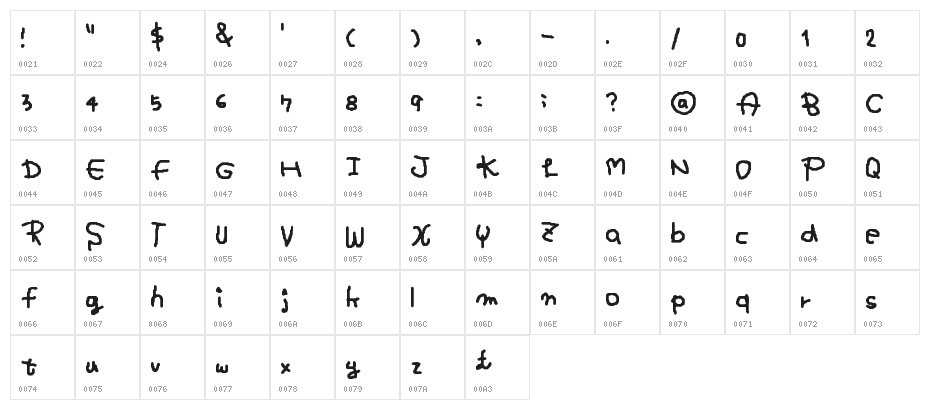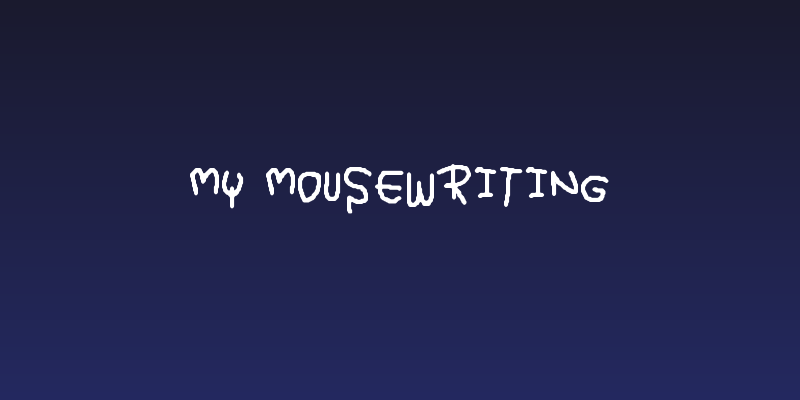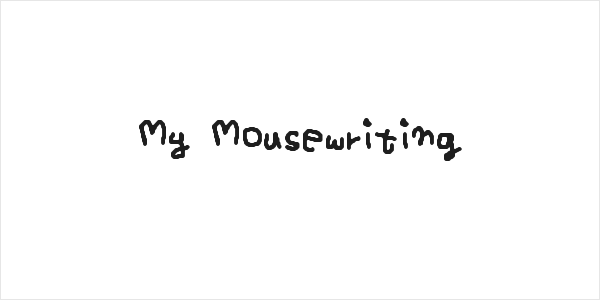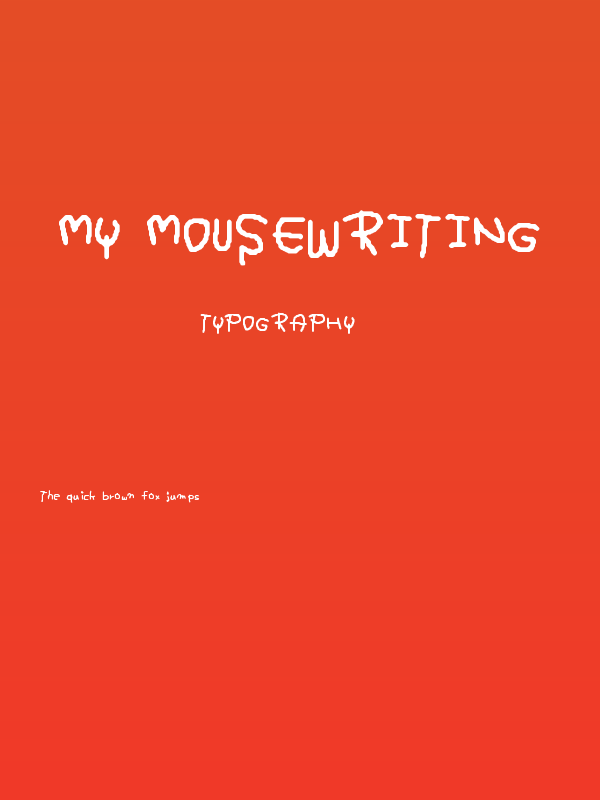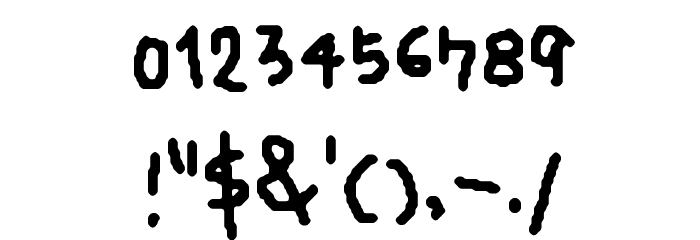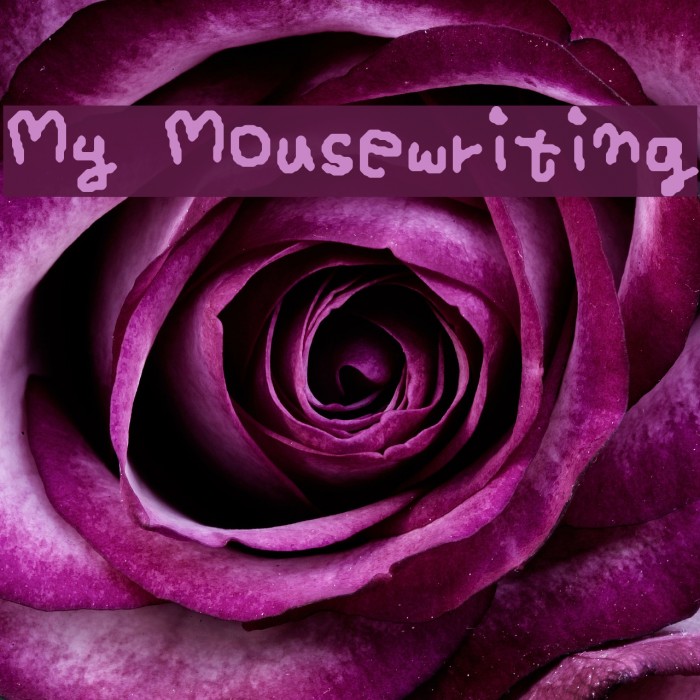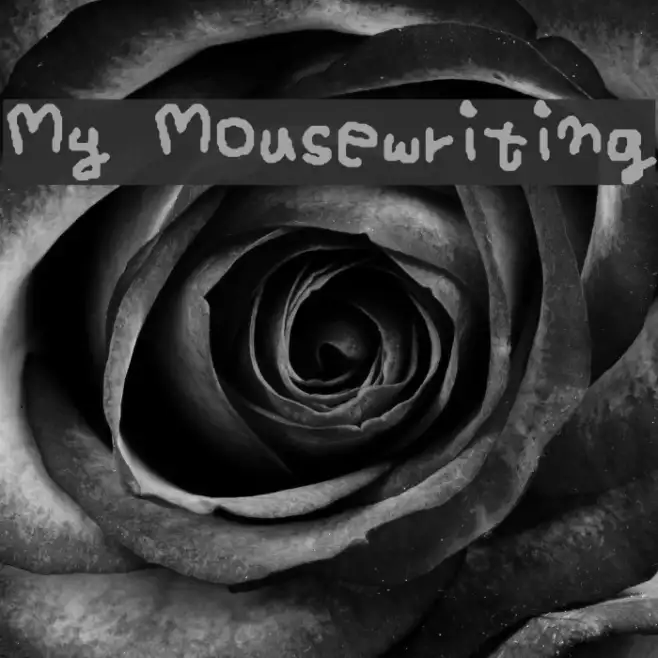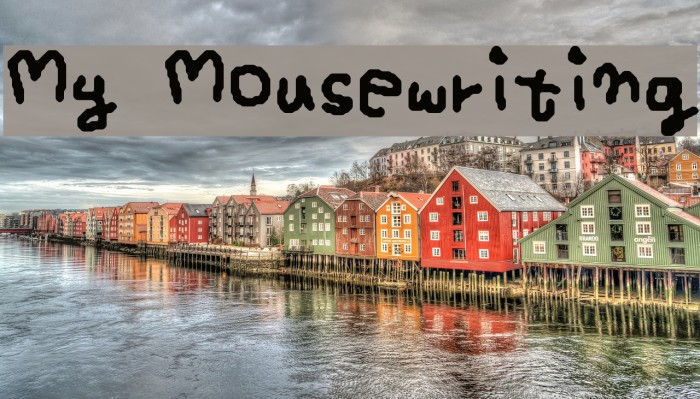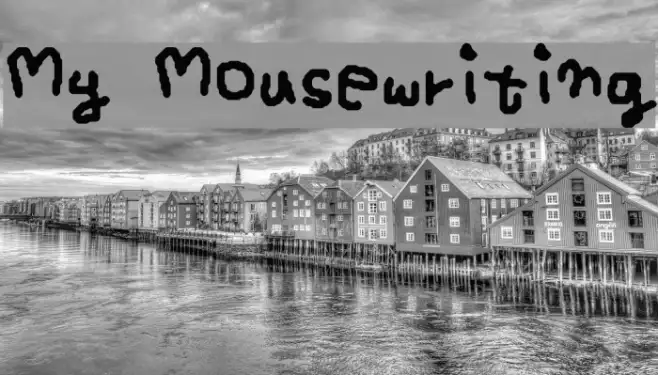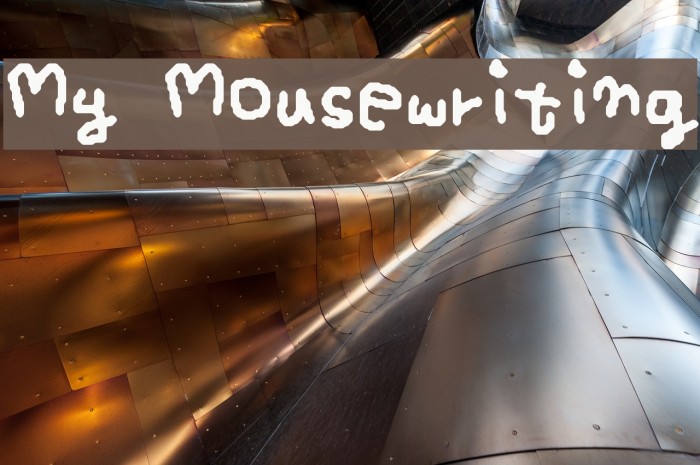
My Mousewriting Font
My Mousewriting Description
This font exhibits a playful and informal style, reminiscent of handwriting with a mouse. The characters are uneven and slightly irregular, giving it a casual and approachable feel. The uppercase and lowercase letters maintain a consistent style, with rounded edges and a slightly shaky appearance. Numbers and special characters follow the same informal design, making the font suitable for projects that require a personal touch. The overall look is quirky and unique, ideal for creative and fun applications.
| Use Case | Headlines, Creative projects, Informal text |
| Proposed Projects | Great for children's books, comic strips, informal invitations, and creative posters. |